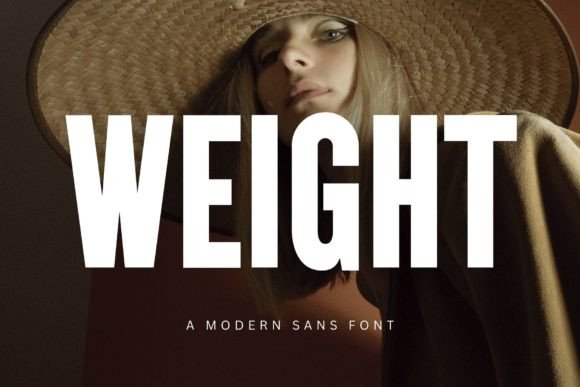
Introducing Weight Font, a sleek and contemporary sans serif font designed to elevate your designs and captivate your audience. Created by Graphicxell, this font is the ultimate choice for those seeking the best fonts for long text.
Weight Font boasts clean lines and balanced proportions, ensuring optimal legibility and visual impact in both digital and print designs. Whether you're working on a website, a magazine layout, or a branding project, this font will effortlessly enhance the professionalism and clarity of your work.
With its versatile and modern aesthetic, Weight Font is a true chameleon, adapting seamlessly to various design styles and purposes. It effortlessly conveys a sense of sophistication and style, making it the perfect choice for projects that demand elegance and refinement.
Imagine your website adorned with Weight Font, instantly communicating a sense of professionalism and trustworthiness to your visitors. Its contemporary design will make your content shine, while its clarity ensures that your message is easily understood.
In the realm of print, Weight Font shines just as bright. From brochures to business cards, this font will make your materials stand out, leaving a lasting impression on your clients and customers. Its timeless appeal guarantees that your designs will remain relevant for years to come.
Don't settle for ordinary fonts that fail to make an impact. With Weight Font, you'll have the power to transform your designs into visual masterpieces. Let your creativity soar as you effortlessly combine elegance, clarity, and style.